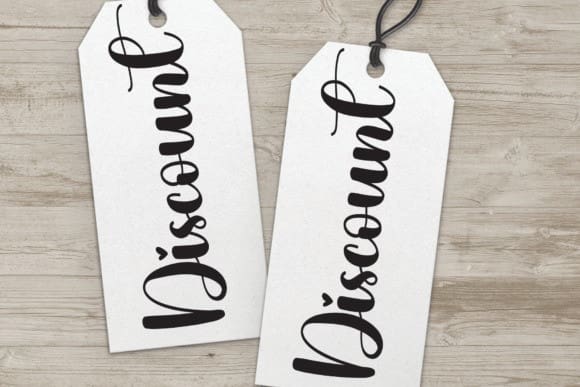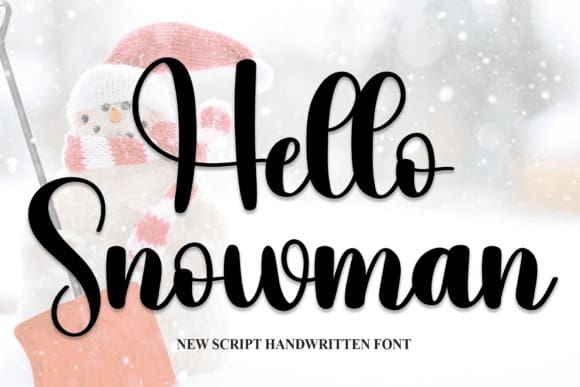
Hello Snowman Font
Hello Snowman Font are the latest stylish letters, perfect for wall display, wedding invitations, social media post logos, advertising, product packaging, product design